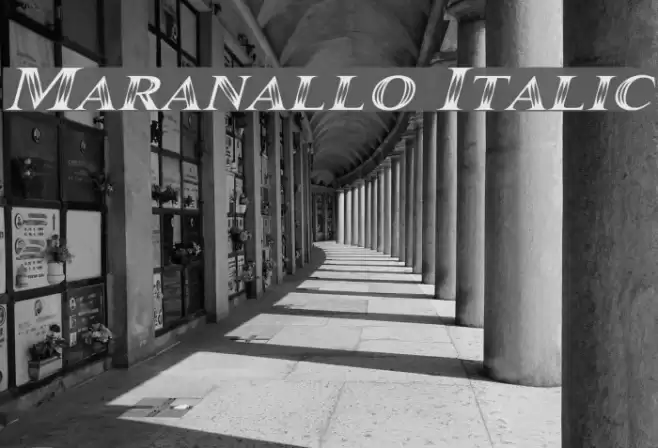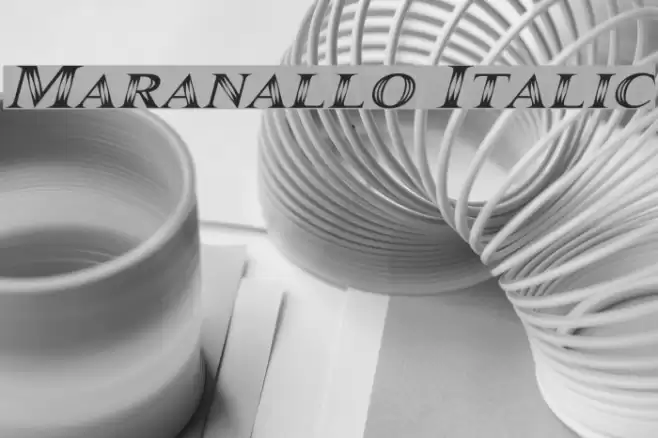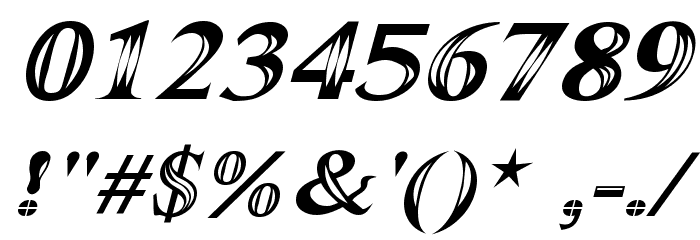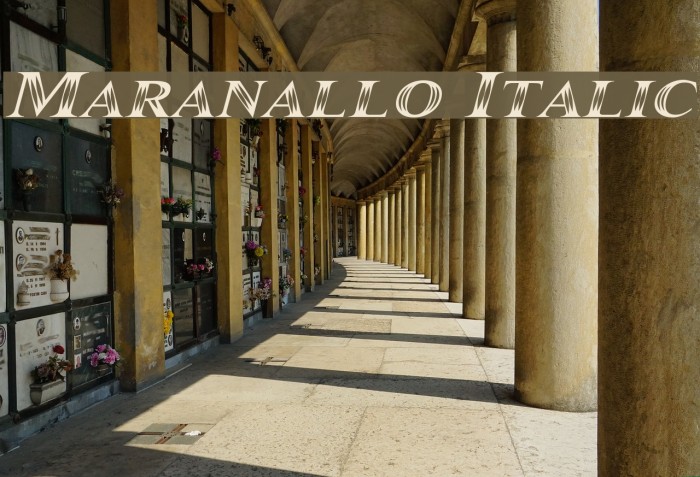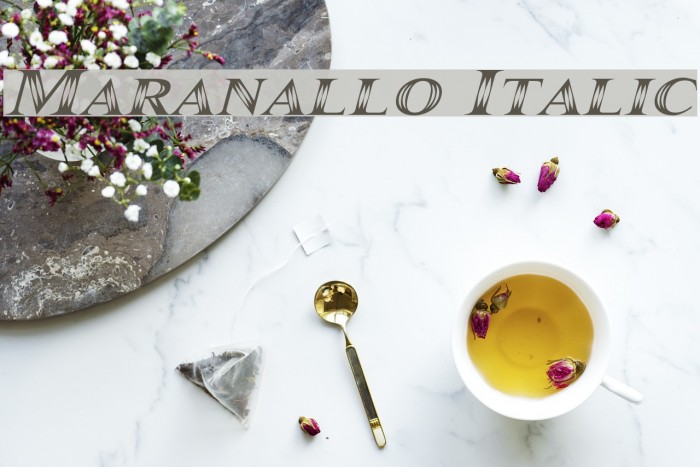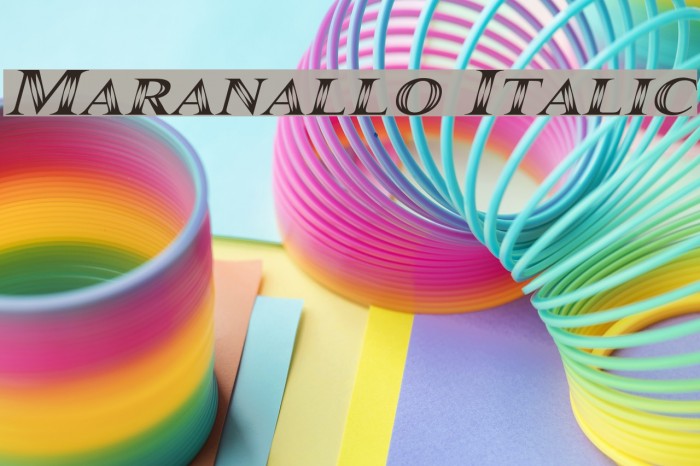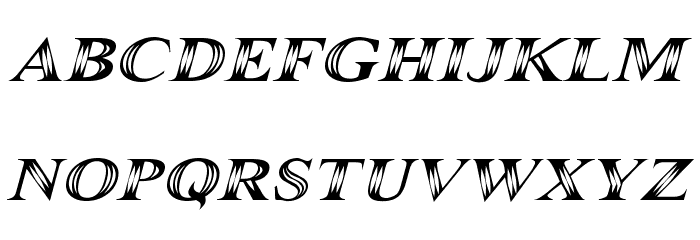
Maranallo Italic Font
Maranallo Italic Description
This font features a dynamic and energetic style with a distinct italic slant, giving it a sense of motion and flair. The characters are bold with a high contrast between thick and thin strokes, adding a dramatic effect. The serifs are sharp and pronounced, enhancing the font's elegant yet assertive appearance. The overall design is decorative, making it suitable for attention-grabbing headlines or artistic projects. The numbers and special characters maintain the same bold and italicized characteristics, ensuring consistency across all glyphs.
A bold, high-contrast italic font with sharp serifs and a decorative style from Typewriter fonts.
- Proposed Projects: Ideal for use in branding, poster design, magazine covers, and other creative projects where a striking and stylish font is needed.